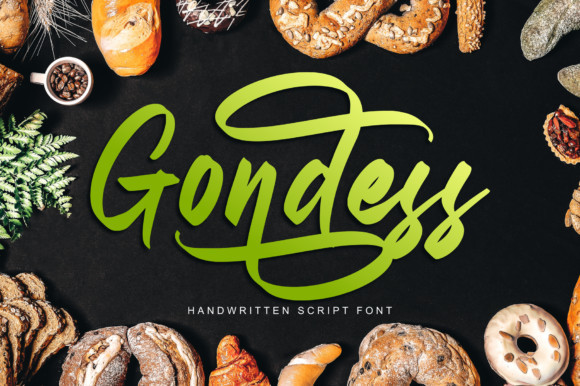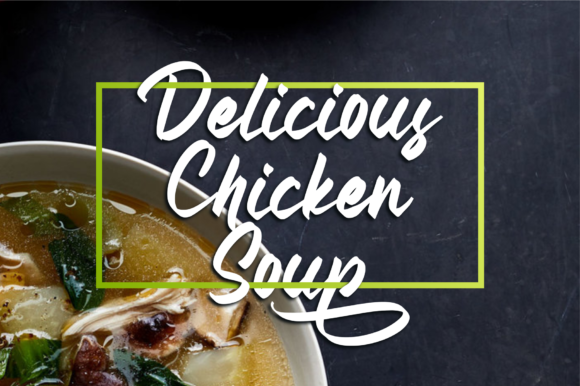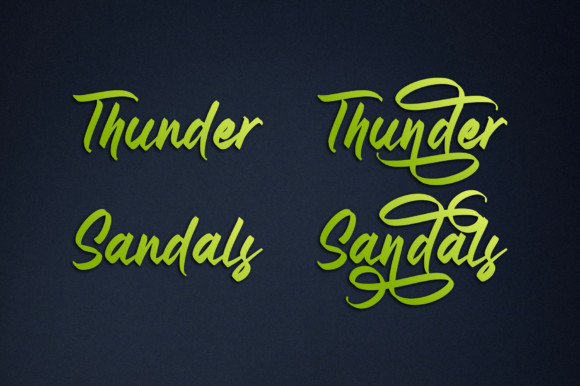
Gondess Font
Gondess is a playful, modern and cool script that radiates authenticity. It features a big range of alternates, that give this font an incredibly level of versatility!